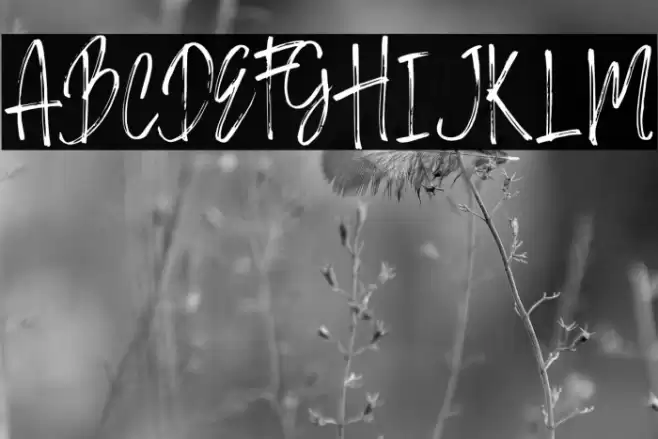
BERASH Font
BERASH Description
This font features a dynamic and expressive handwritten style, characterized by its bold and energetic strokes. The letters exhibit a playful yet edgy appearance, with varying line thickness that adds a sense of movement and spontaneity. The uppercase and lowercase letters maintain a consistent style, while the numbers and special characters complement the overall aesthetic. The font's irregular and artistic nature makes it stand out, offering a unique visual appeal that is both modern and creative.
A bold, expressive handwritten font with dynamic strokes and a modern flair from Uncategorized fonts.
- Font: BERASH
- Proposed Projects: Ideal for creative projects such as posters, album covers, branding, and social media graphics where a bold and artistic touch is desired.
- Overall Style: Modern, Decorative